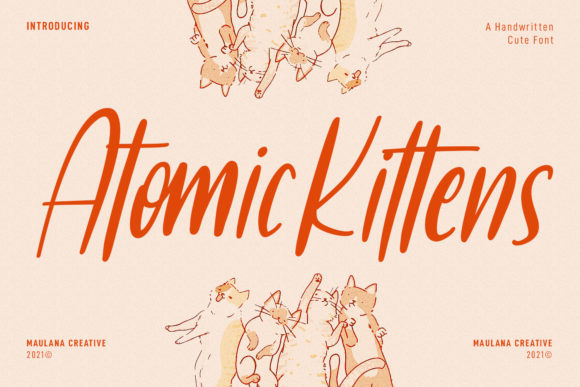
Journey into a world of captivating aesthetics with the Atomic Kittens font, a mesmerizing script typeface that dances across your designs, leaving a trail of elegance and charm. Crafted with meticulous care by the skilled hands of Maulana Creative, this font is a symphony of flowing strokes and enchanting curves, beckoning you to explore the realm of visual artistry.
Unleash your creativity and let your designs blossom with the Atomic Kittens font. Its graceful lines and playful swashes ignite a sense of wonder and whimsy, transforming ordinary words into captivating expressions. Whether you're a seasoned designer or just starting your creative journey, this font is your perfect companion, ready to elevate your projects to new heights.
Picture your designs adorned with the Atomic Kittens font, captivating your audience with its intrinsic beauty. Create eye-catching logos that command attention, branding that exudes sophistication, and quotes that resonate with emotion. Each letter, meticulously crafted, carries a unique charm, adding a touch of magic to your every creation.
With the Atomic Kittens font, you hold the key to unlocking creative possibilities. Its versatility knows no bounds, adapting seamlessly to a myriad of projects. Let your imagination run wild as you craft stunning posters, vibrant social media graphics, enchanting invitations, and personalized greeting cards. This font is your canvas, where your creativity takes center stage.
Step into the spotlight with the Atomic Kittens font and watch your designs shine brighter than ever before. Its timeless appeal ensures that your creations will stand the test of time, leaving a lasting impression on all who encounter them. Embrace the allure of this captivating script and embark on a creative journey that will ignite your passion and leave you spellbound.